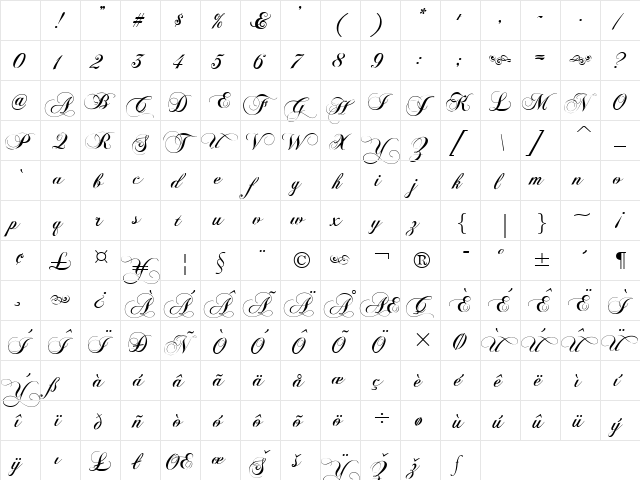
Flaemische Kanzleischrift Regular
Design Context for Flaemische Kanzleischrift
Flaemische Kanzleischrift is a composed and adaptable typeface that performs quietly and consistently across a wide range of design contexts.